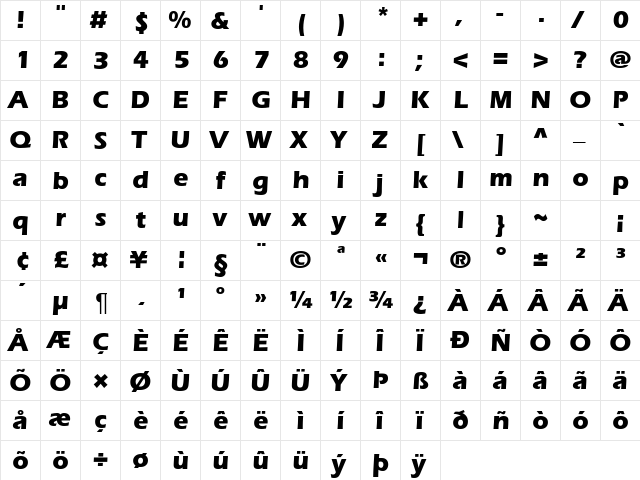
ErlangenBlackDB Normal
Design Context for ErlangenBlackDB Typeface
ErlangenBlackDB offers clean, dependable letterforms without strong stylistic allegiance, making it a practical choice for designers who need flexibility.